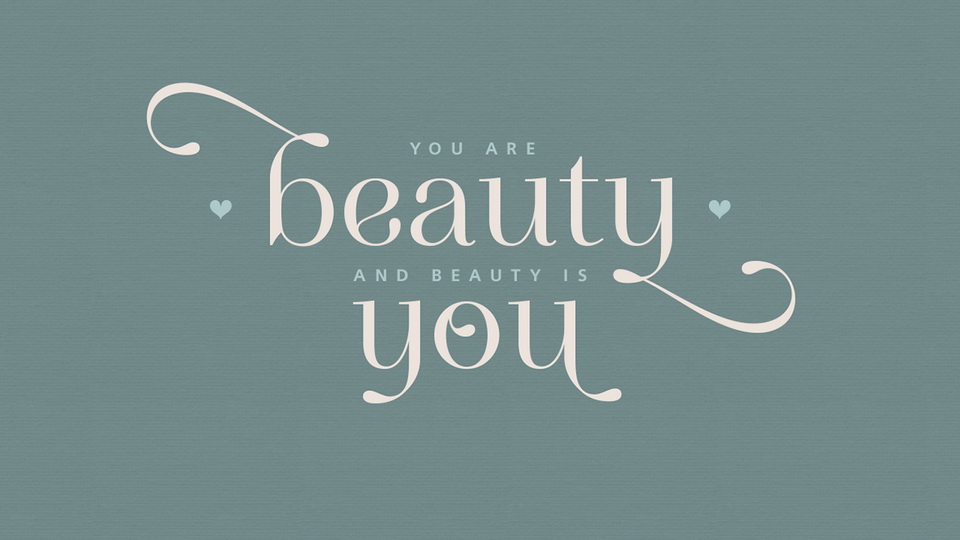
Balerno is a modern (yet vintage) multilingual elegant Didone serif enhanced by ligatures, alternates and swashes.
Balerno is a very versatile font family - with it's classic forms and modern features it covers a wide range of design projects starting from greeting cards to magazines, wedding invitations to websites etc.